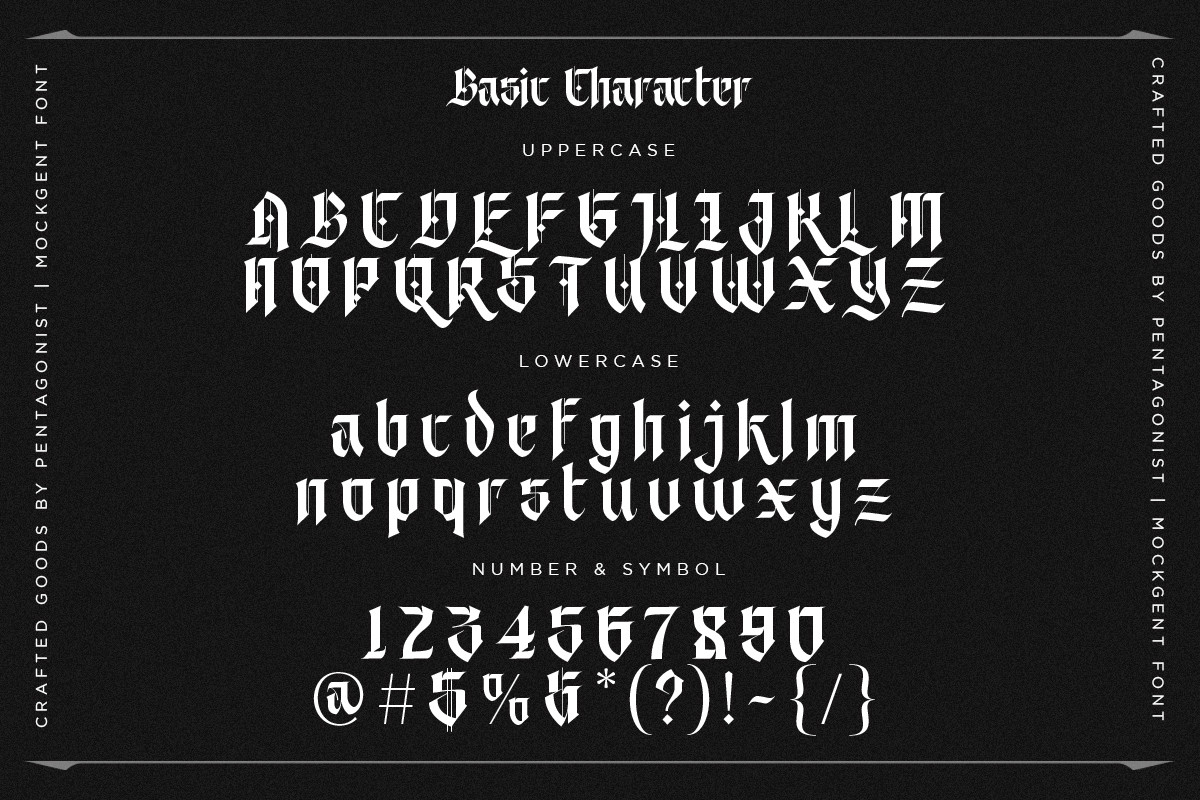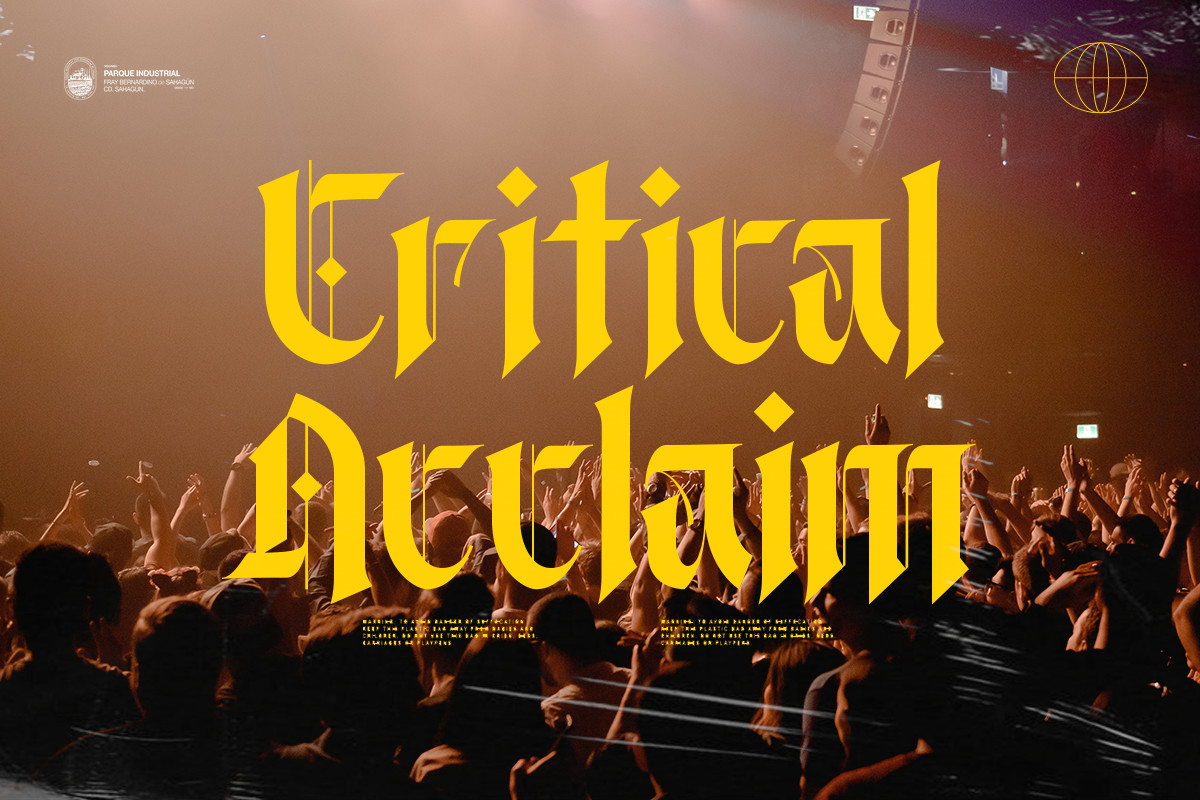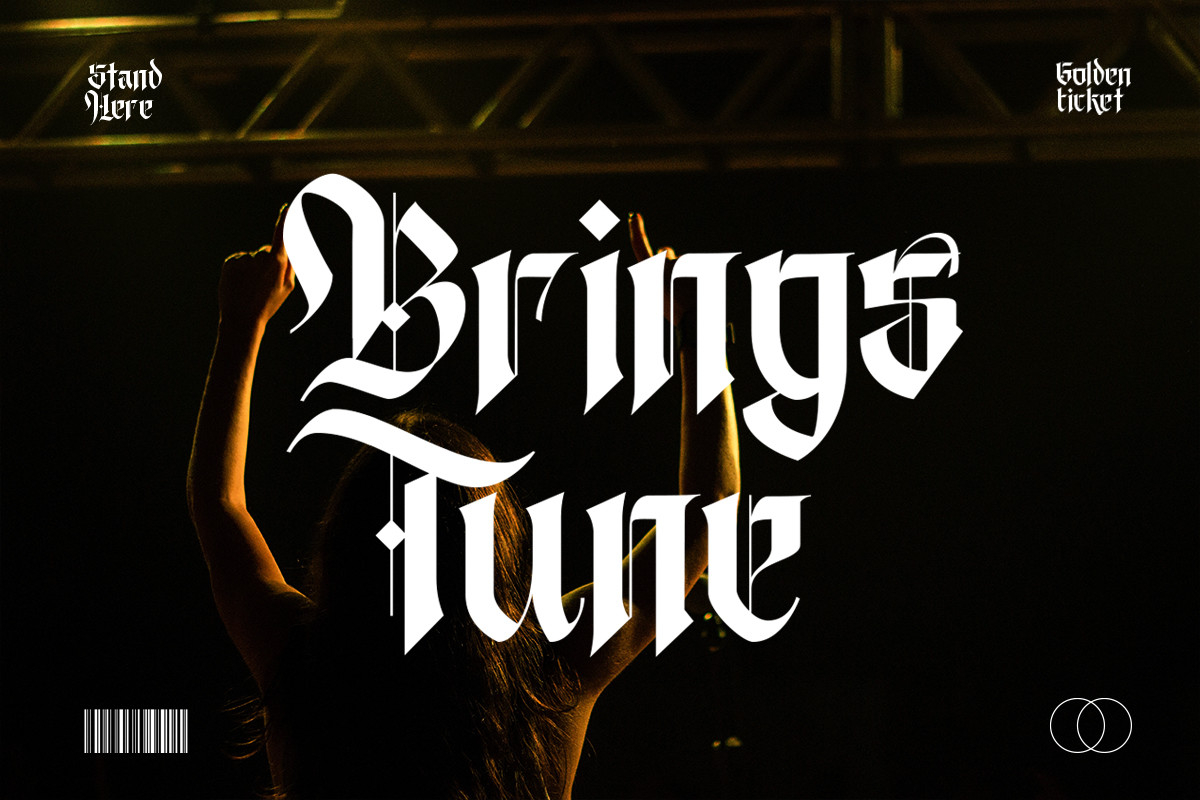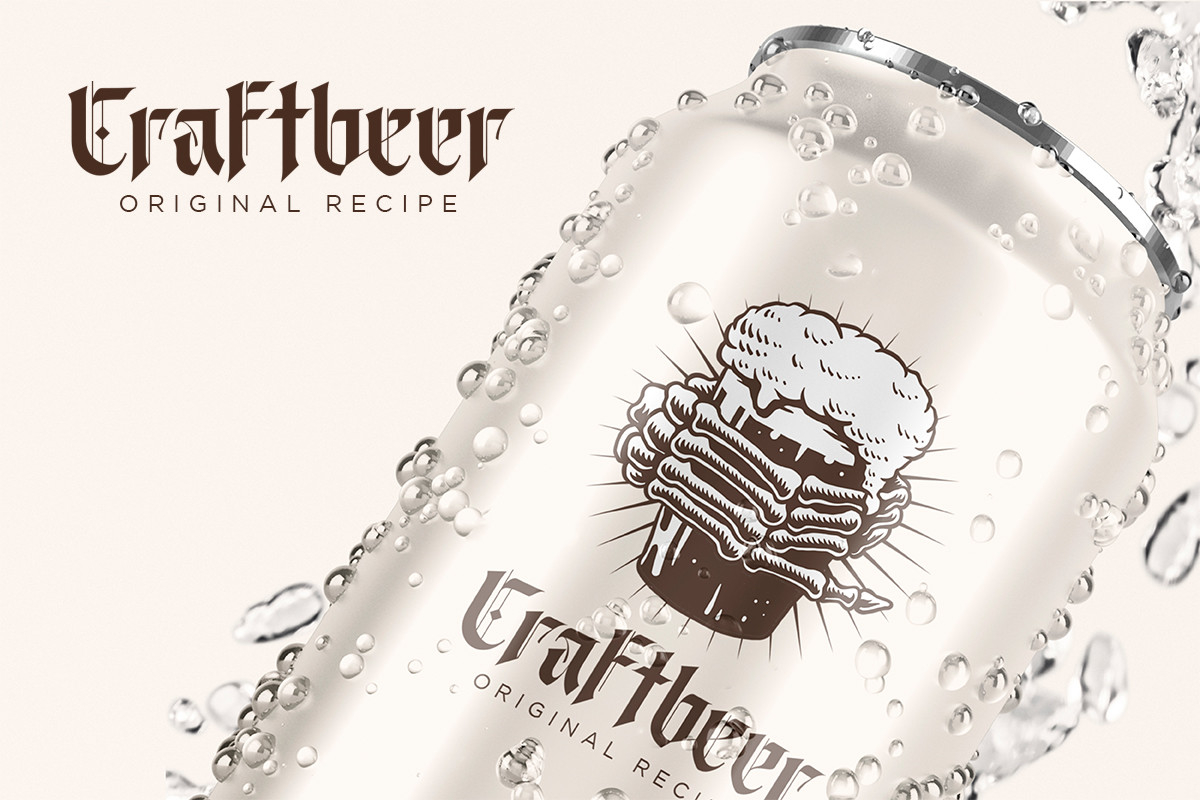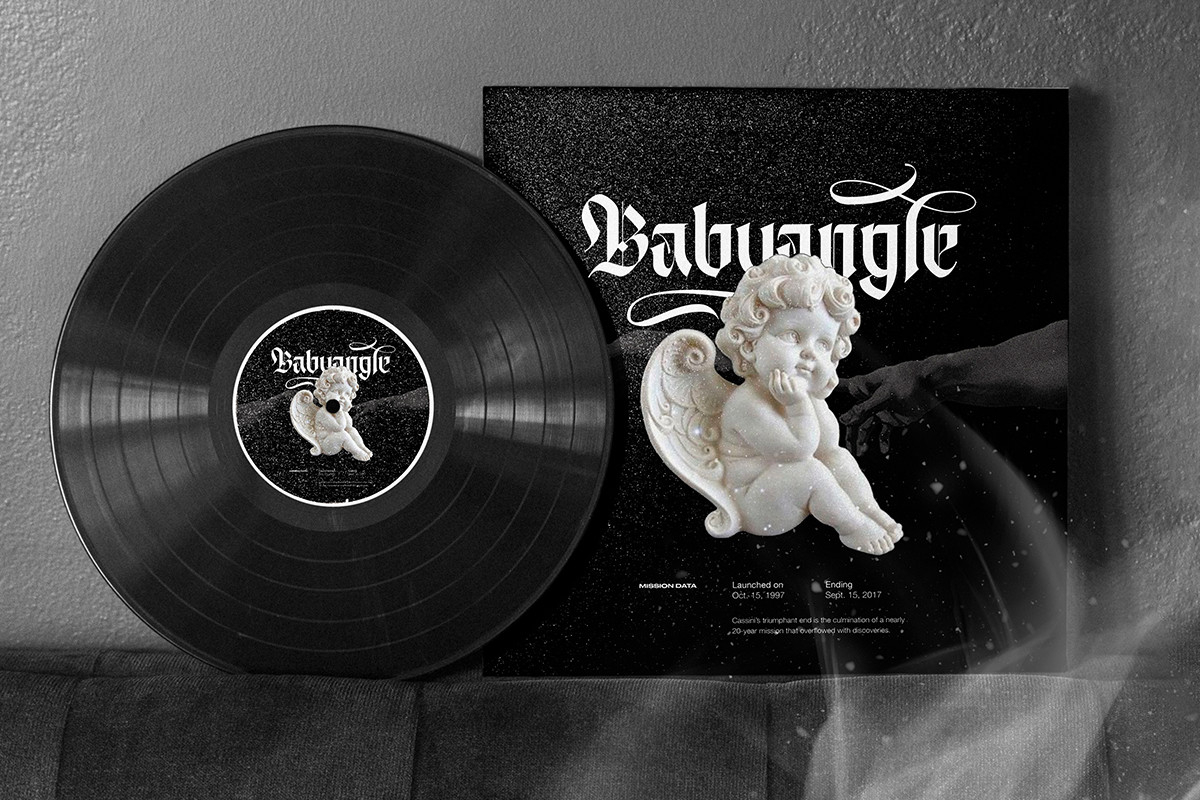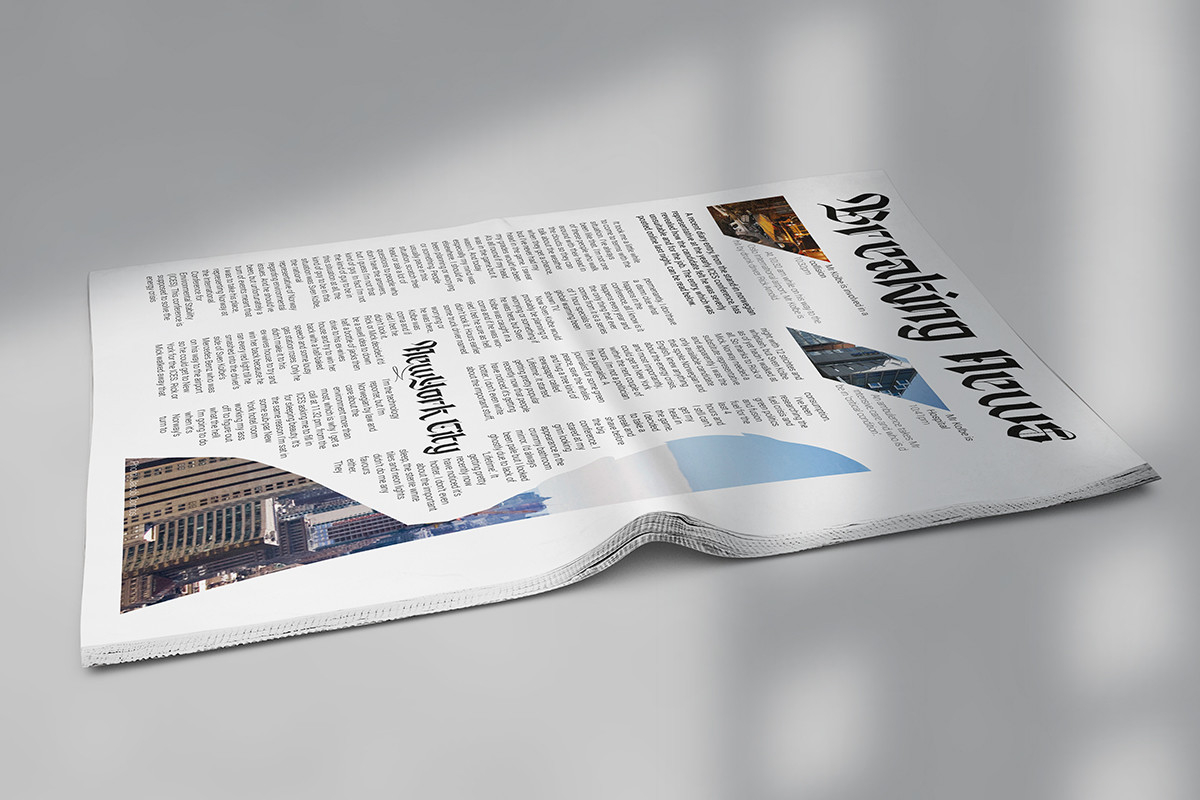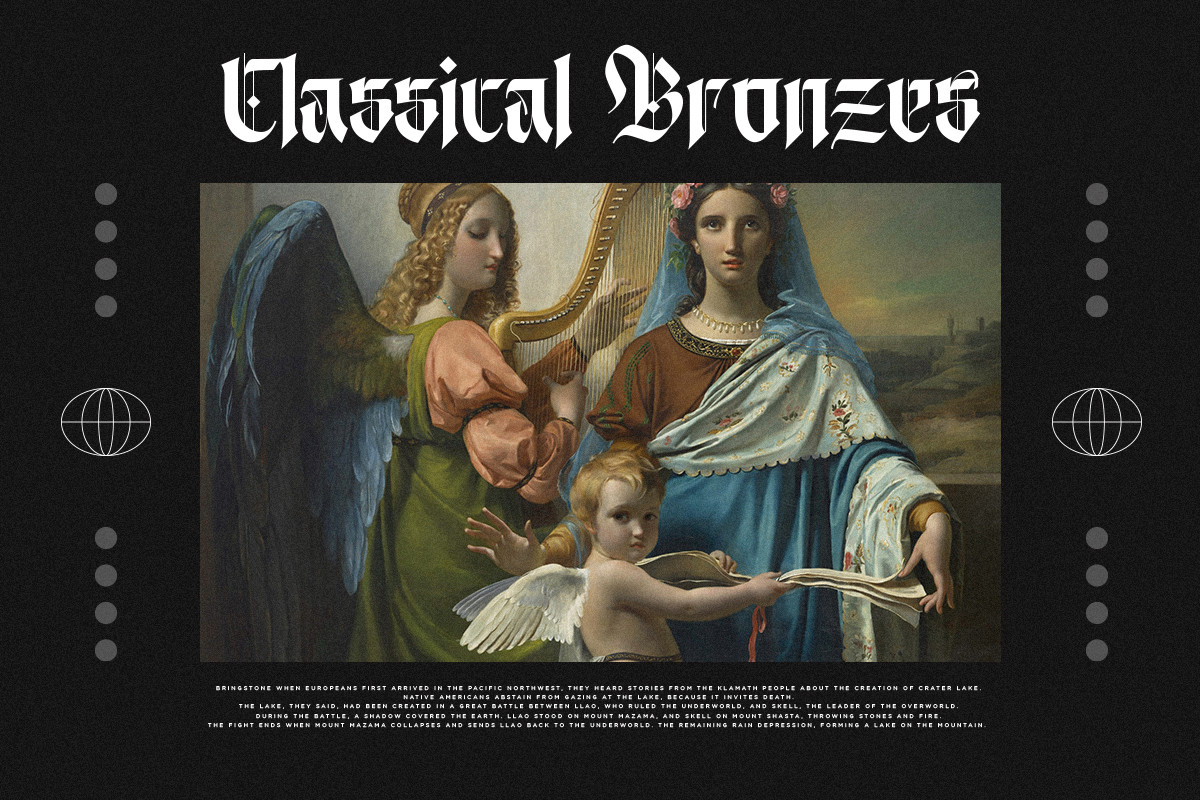
Mockgent Font
About Mockgent Font
This blackletter font is bold, powerful, and full of character. Its intricate details and elegant curves add a touch of sophistication to any project, while its thick lines demand attention. The perfect choice for logos, headlines, and anything that requires a touch of gravitas and grandeur.